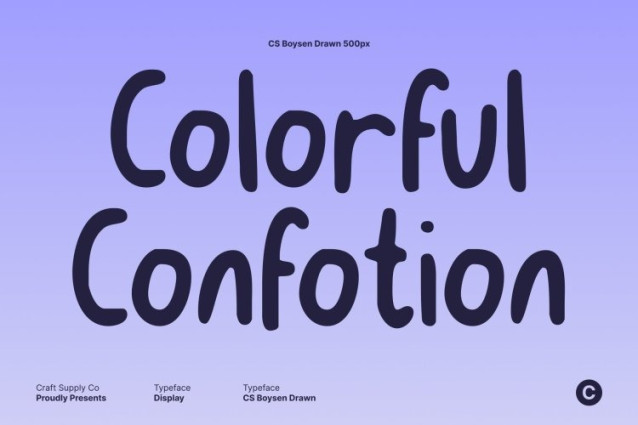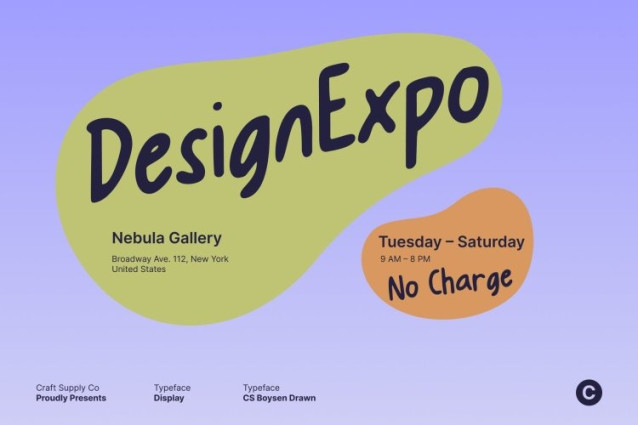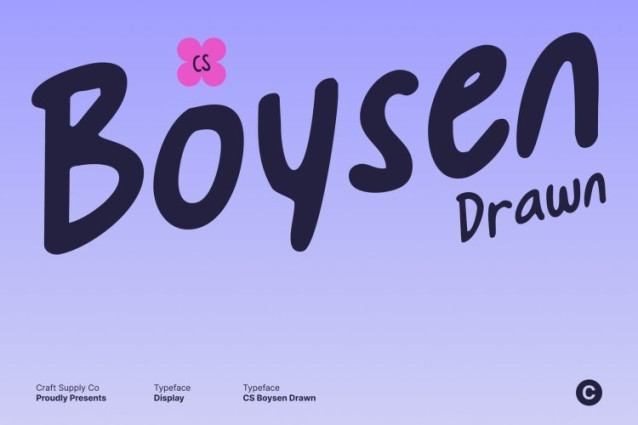
CS Boysen Drawn Font
CS Boysen Drawn Font This is a friendly handwritten font that bursts with joy and creativity. Built with rounded sans serif strokes and playful shapes, it delivers a natural, approachable feel that instantly adds warmth and personality to any design. The drawn effect enhances its handcrafted look, giving each letter a lively, human touch that feels spontaneous yet thoughtfully balanced.
Rounded Strokes for a Soft and Welcoming Feel
The smooth, rounded edges create a comforting and cheerful impression. Each character flows effortlessly, expressing friendliness and openness while the subtle drawn texture adds softness and charm. This welcoming quality makes the font especially suitable for designs aimed at children, families, or audiences who appreciate a cute and uplifting aesthetic.
Playful Shapes with Hand-Drawn Personality
This font stands out through its fun, slightly quirky letterforms that bring rhythm and movement to text. The hand-drawn details add unique character and visual interest, making every word feel expressive and alive. Its playful nature makes it ideal for kids’ books, educational materials, creative posters, and happy-themed designs.
Perfect for Fun, Whimsical, and Joyful Designs
From children’s projects and cheerful branding to event graphics and playful packaging, this font adapts effortlessly across creative applications. Its combination of rounded forms, handwritten charm, and drawn texture ensures a positive, friendly tone that feels genuine and full of energy.